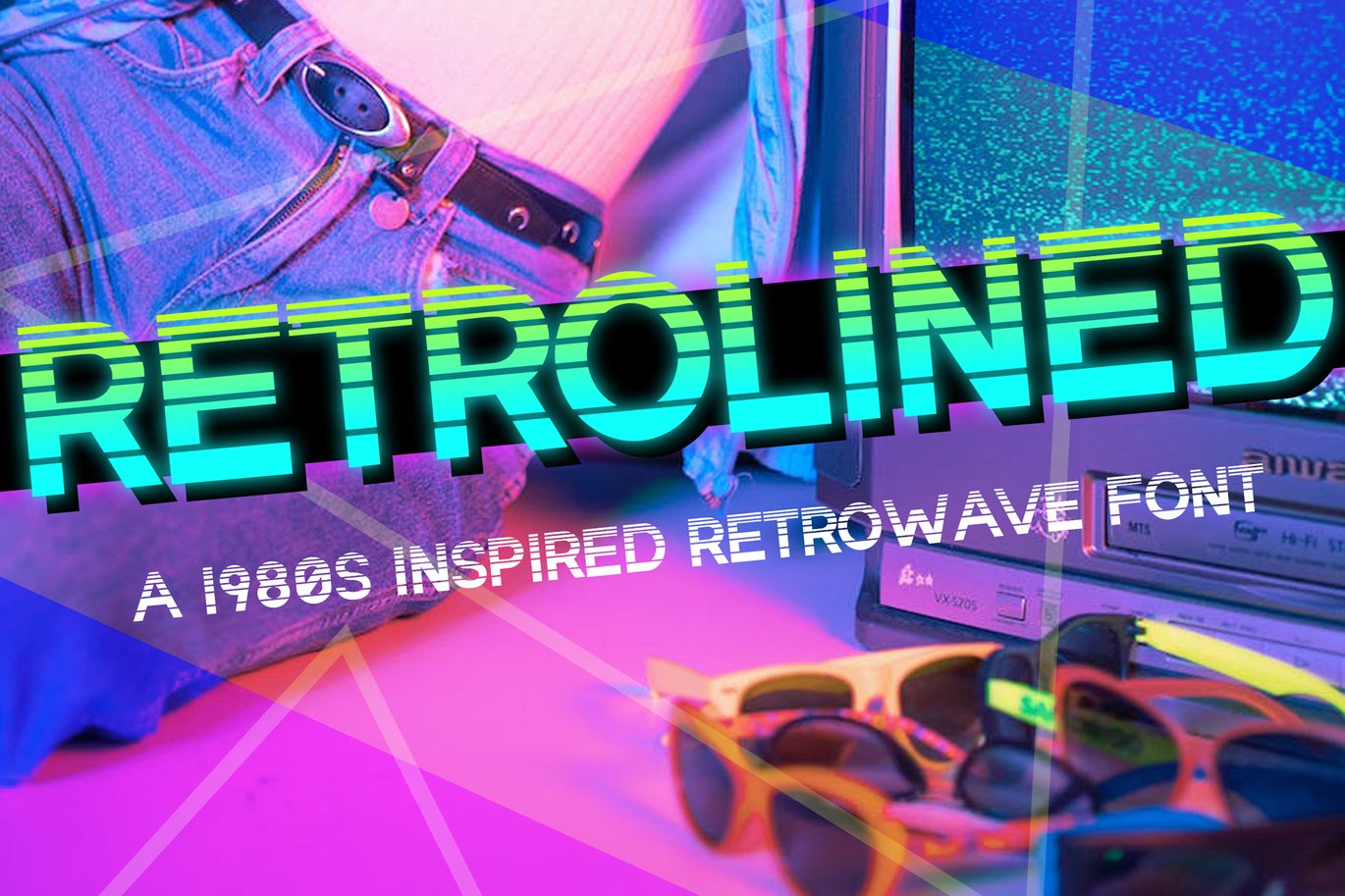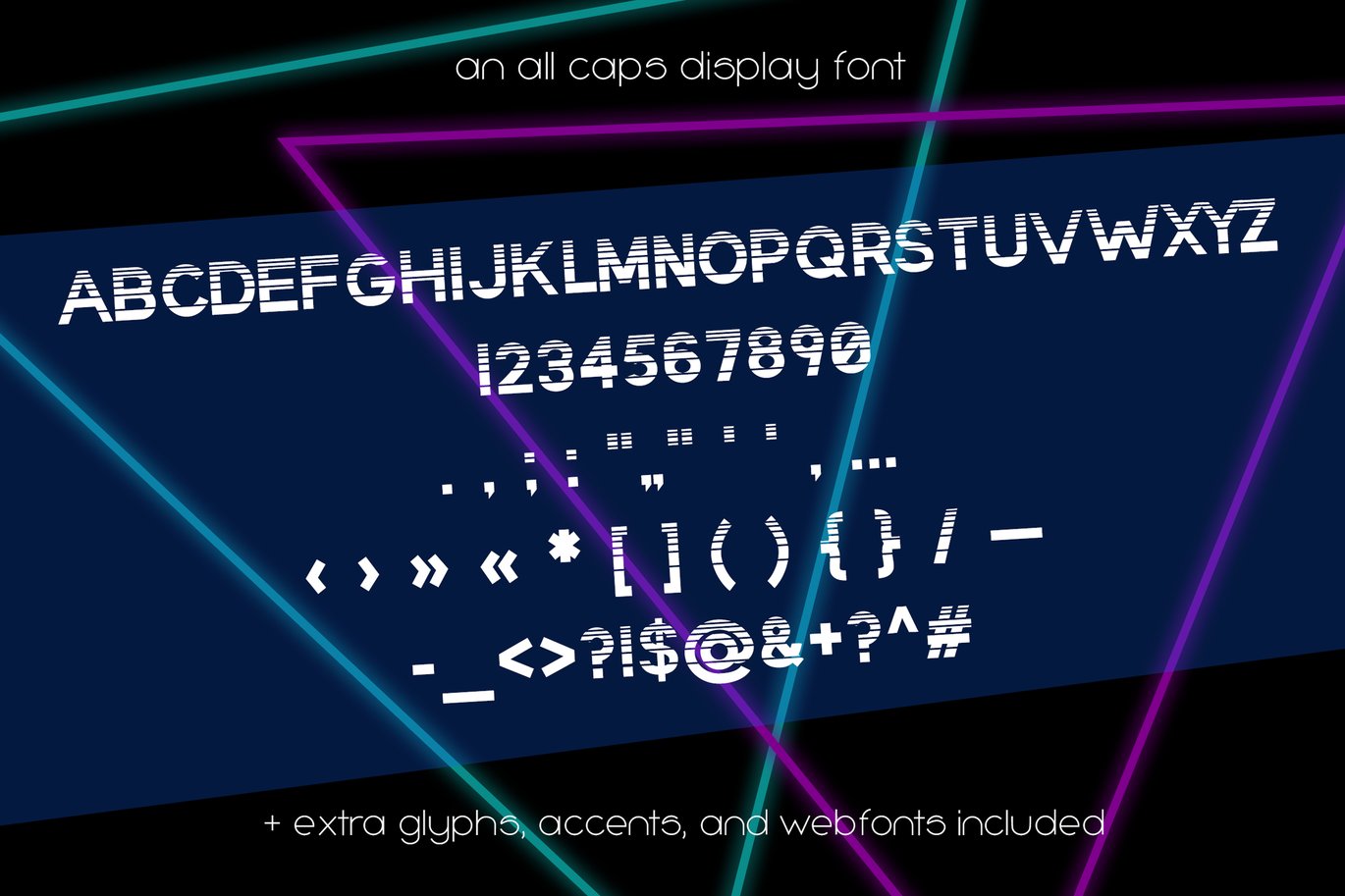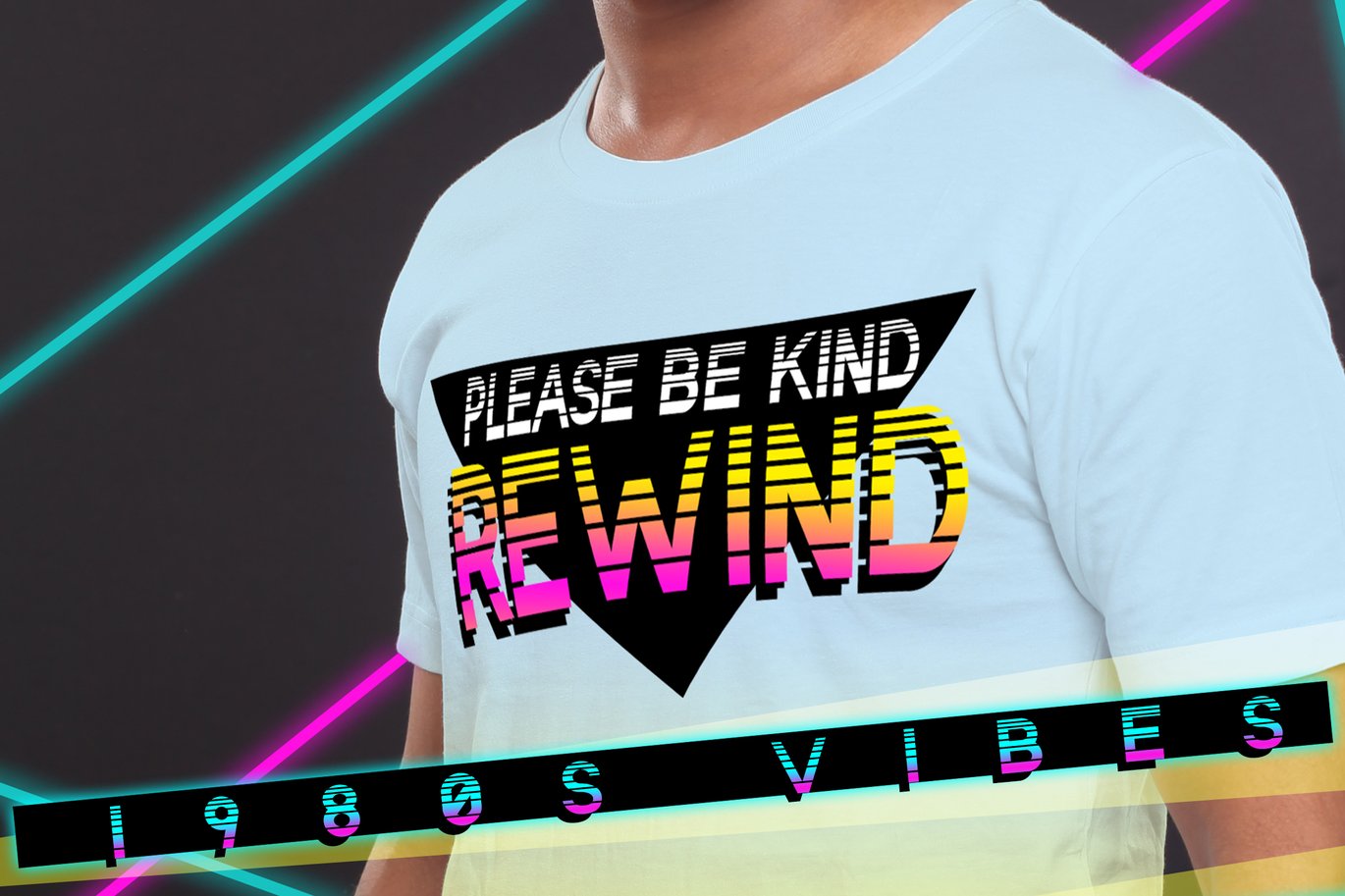
Retrolined Synthwave 80s Retro Font
Introducing Retrolined a chunky, lined 1980s font! Every bold sans serif letter has cut out lines through them. This is an all caps font, and I recommend trying it with gradient overlays or layering! If you’re looking for synthwave fonts, retrowave fonts, or vaporwave fonts, this font could be right up your alley. It also includes web font files for your website.
There’s also extended Latin characters, as well as other glyphs! Every letter was drawn by me, and I had a ton of fun with it. Hope you enjoy it too!